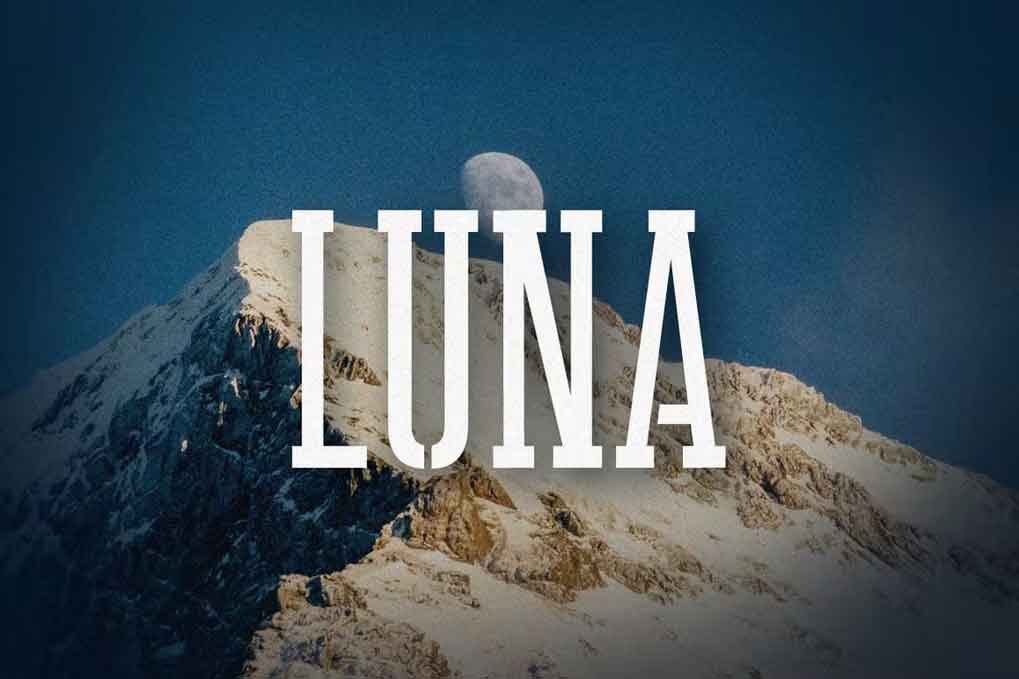
LUNA Font
Luna is a slab serif typeface that suitable for any promotion and graphic design purposes. Also available in stylish version with a little bit “stencil” look on it.
.Available in 2 version: Reguler and Stylish version with complete lower and uppercase types.
LUNA Font is a Serif Fonts font that brings a professional and versatile look to your projects. Luna is a slab serif typeface that suitable for any promotion and graphic design purposes.